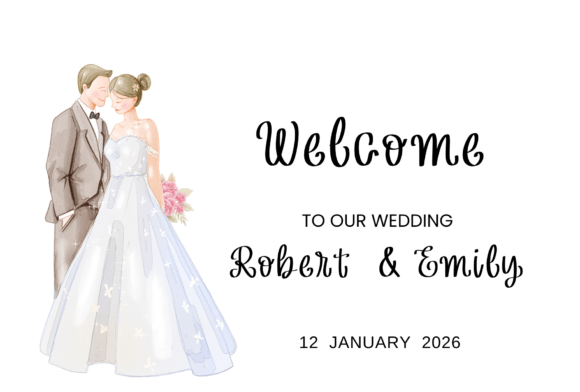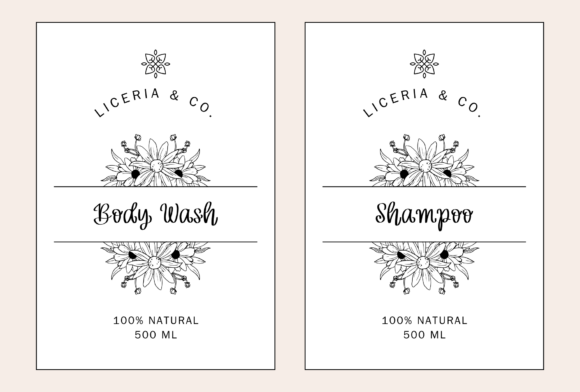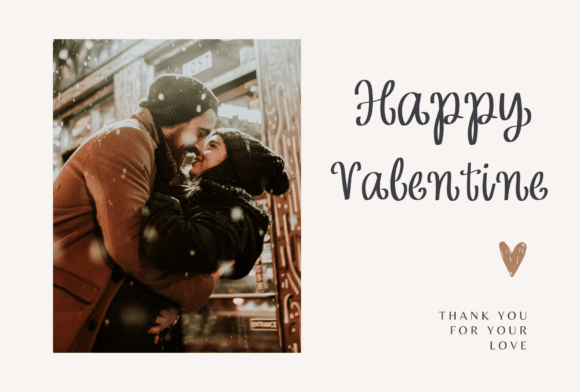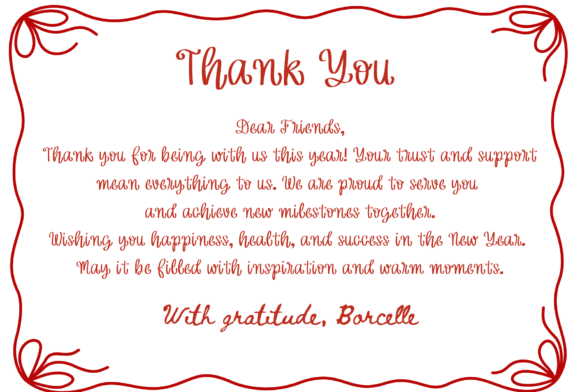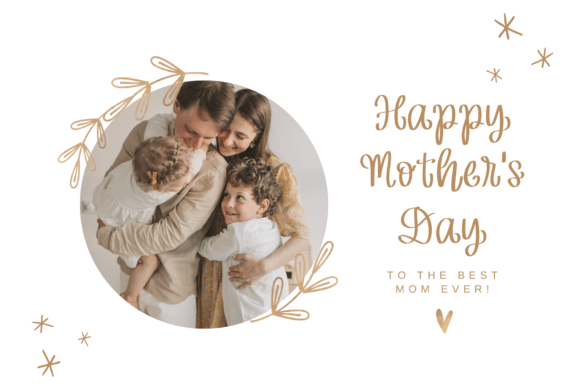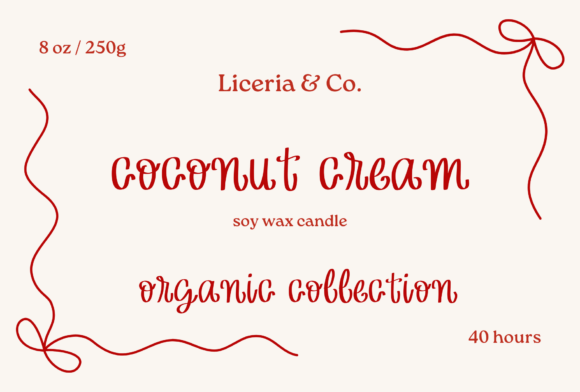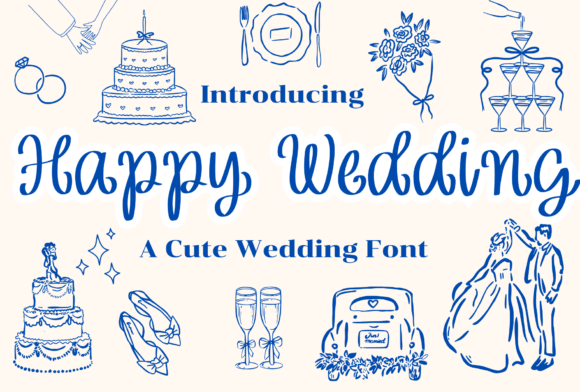
Introducing Happy Wedding Font: The Perfect Blend of Elegance and Playfulness
Are you a designer or crafter looking for the perfect font to make your wedding-related designs stand out? Look no further than the “Happy Wedding” font, a charming handwritten script that combines elegant sophistication with a touch of playfulness. This beautiful font is ideal for creating stunning wedding invitations, romantic greeting cards, elegant branding, and any design that requires a refined, handcrafted feel.
The Characteristics of Happy Wedding Font
The “Happy Wedding” font is a unique blend of classic elegance and modern playfulness. Its handwritten script features flowing lines, delicate curves, and a subtle charm that makes it perfect for a variety of design applications. The font’s elegant and refined aesthetic makes it suitable for high-end wedding designs, while its playful undertones add a touch of whimsy and romance.
Key Features of Happy Wedding Font
- Handwritten Script: The “Happy Wedding” font features a beautiful, handcrafted script that gives it a personal and intimate feel.
- Elegant and Refined: The font’s classic lines and curves make it perfect for high-end wedding designs, formal events, and sophisticated branding.
- Playful Undertones: The font’s playful undertones add a touch of whimsy and romance, making it ideal for wedding invitations, greeting cards, and other romantic designs.
- Versatile: The “Happy Wedding” font can be used for a variety of design applications, including wedding invitations, greeting cards, branding, and more.
Using Happy Wedding Font for Wedding Invitations
Wedding invitations are one of the most popular uses for the “Happy Wedding” font. The font’s elegant and refined aesthetic makes it perfect for formal wedding invitations, while its playful undertones add a touch of romance and whimsy. Here are a few tips for using the “Happy Wedding” font for wedding invitations:
- Combine with Simple Backgrounds: Pair the “Happy Wedding” font with simple backgrounds to make the text stand out.
- Add Floral Elements: Add floral elements, such as illustrations or watercolor designs, to complement the font’s elegant and refined aesthetic.
- Experiment with Colors: Experiment with different colors, such as soft pastels or metallic ink, to add a touch of whimsy and romance.
Using Happy Wedding Font for Romantic Greeting Cards
The “Happy Wedding” font is also perfect for creating romantic greeting cards for special occasions, such as anniversaries, Valentine’s Day, and love letters. Here are a few tips for using the font for romantic greeting cards:
- Keep it Simple: Keep the design simple and elegant, with plenty of white space to make the text stand out.
- Add Personal Touches: Add personal touches, such as illustrations or photographs, to make the card more intimate and special.
- Experiment with Foil Stamping: Experiment with foil stamping or metallic ink to add a touch of luxury and sophistication.
The “Happy Wedding” font is a beautiful and versatile script that is perfect for designers and crafters looking to create stunning wedding-related designs. Its elegant and refined aesthetic, combined with its playful undertones, make it ideal for a variety of design applications, including wedding invitations, romantic greeting cards, elegant branding, and more. With its handcrafted feel and sophisticated charm, the “Happy Wedding” font is sure to become a favorite in your design arsenal.